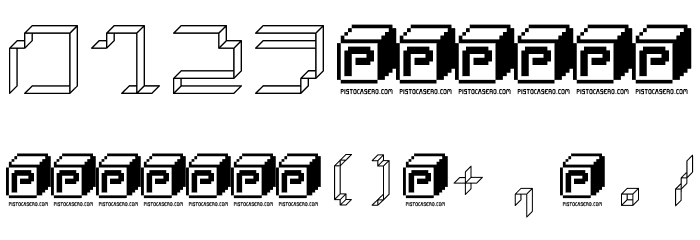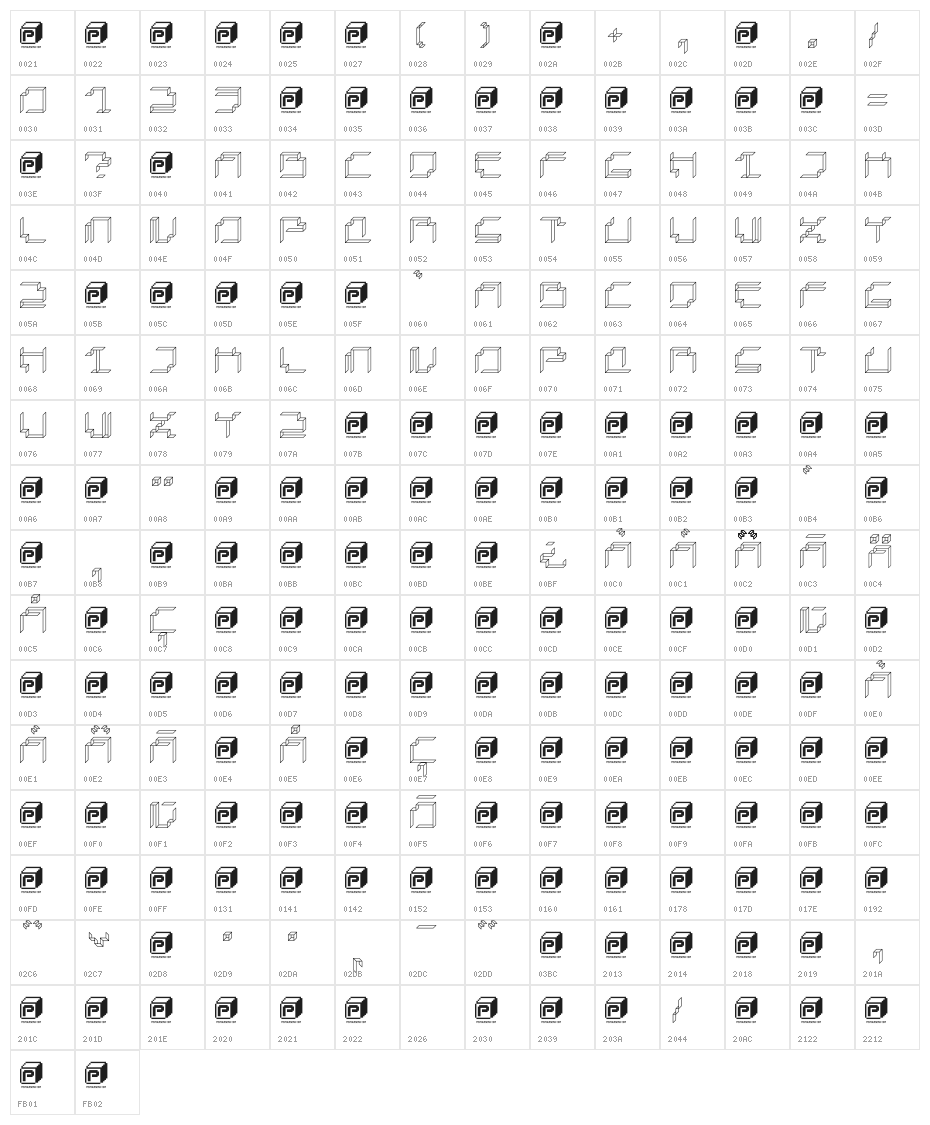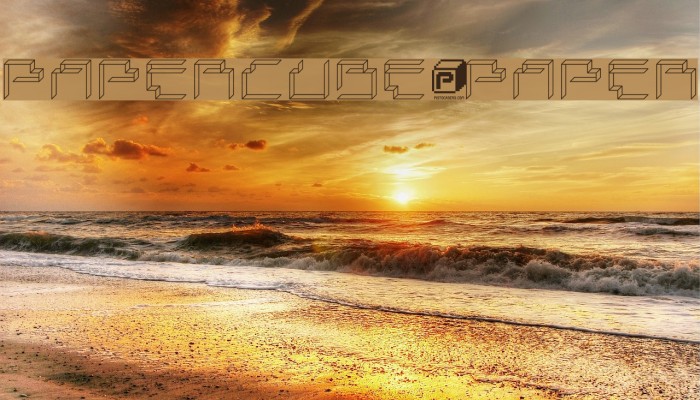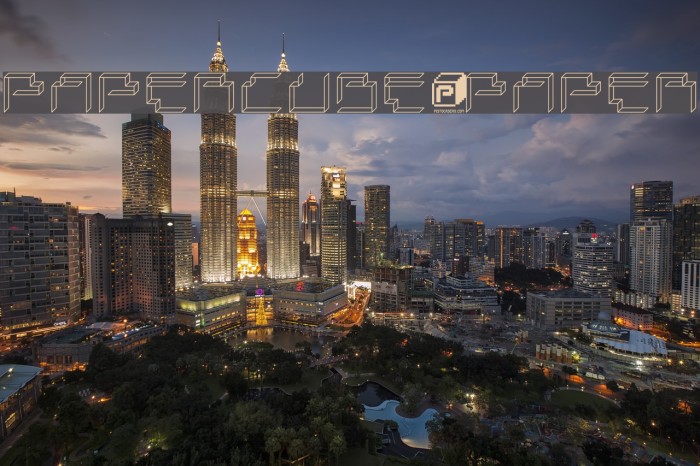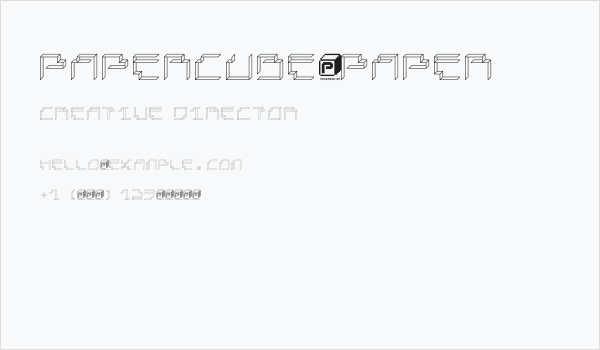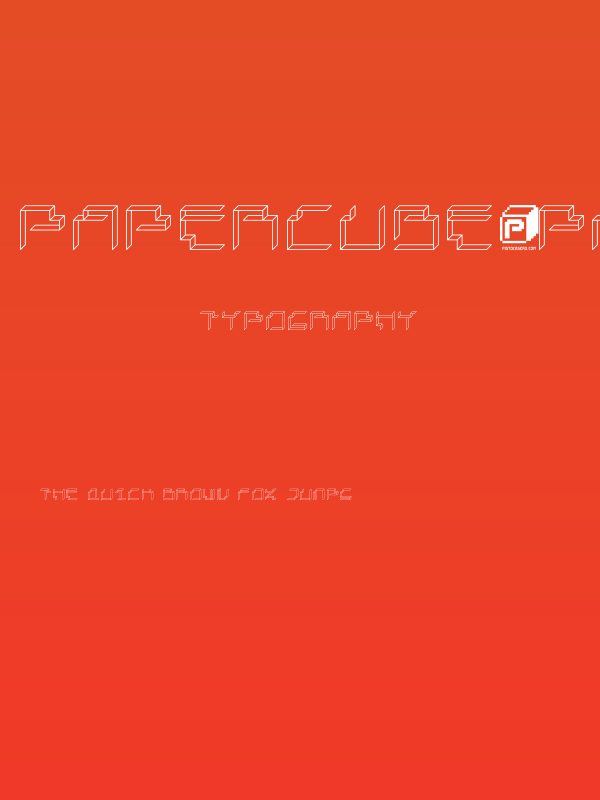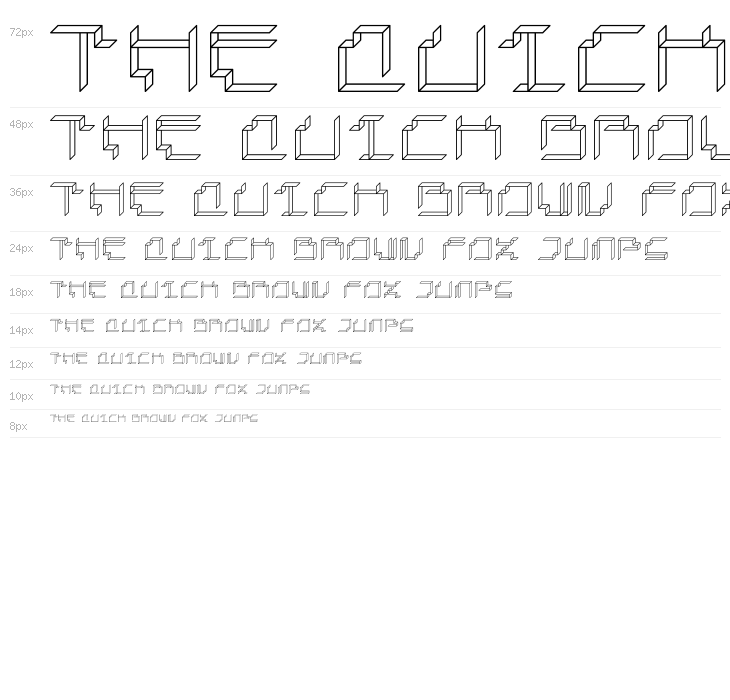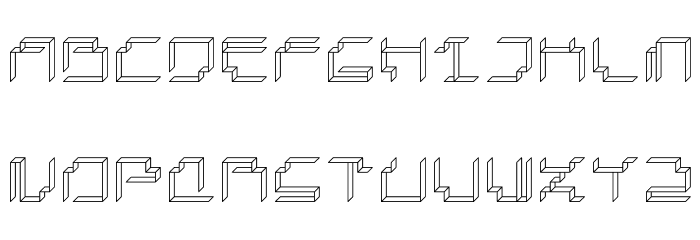
PaperCube-Paper Font
PaperCube-Paper Description
This font exhibits a unique, geometric style with a three-dimensional, cube-like appearance. Each character is constructed with angular lines and sharp edges, giving it a futuristic and digital aesthetic. The letters and numbers are designed with a consistent blocky structure, creating a cohesive and visually striking typeface. The special characters maintain this theme, adding to the overall uniformity of the design. This font is ideal for projects that require a modern, tech-inspired look, offering a distinct and memorable visual impact.
| Proposed Projects | Ideal for tech-related branding, digital art projects, futuristic posters, and video game graphics. |